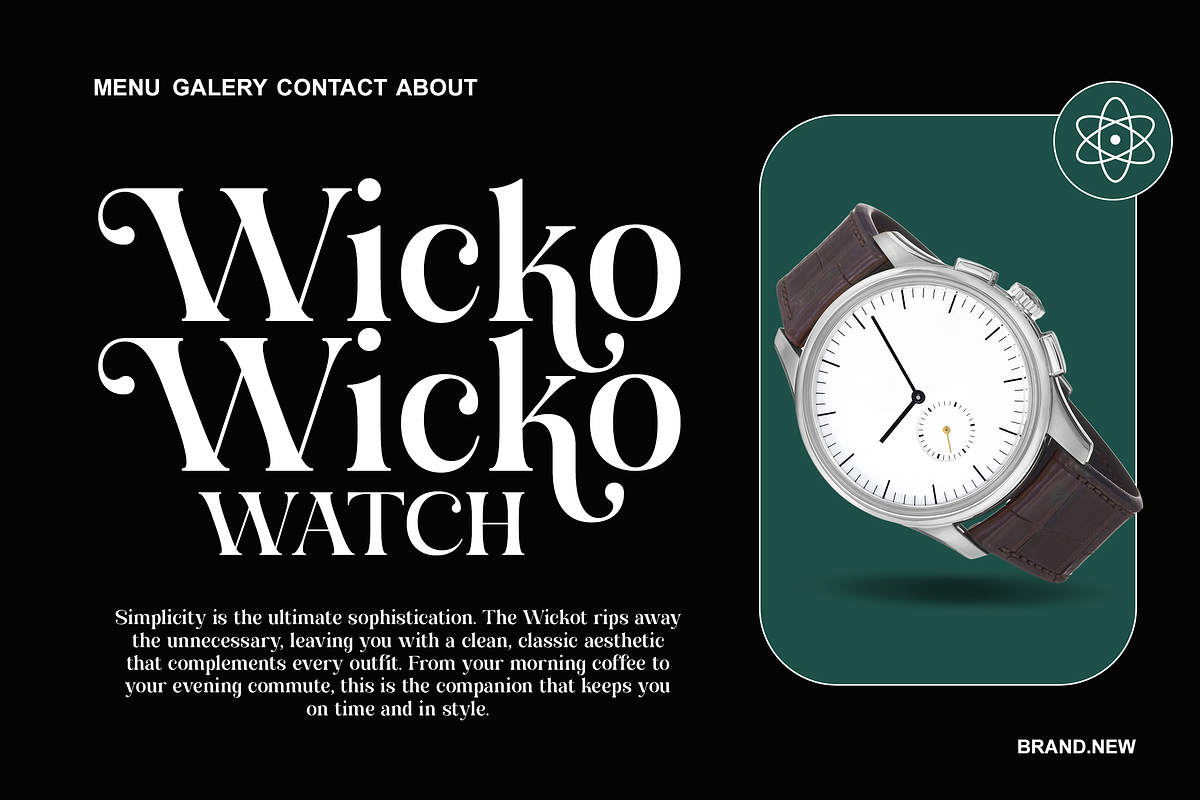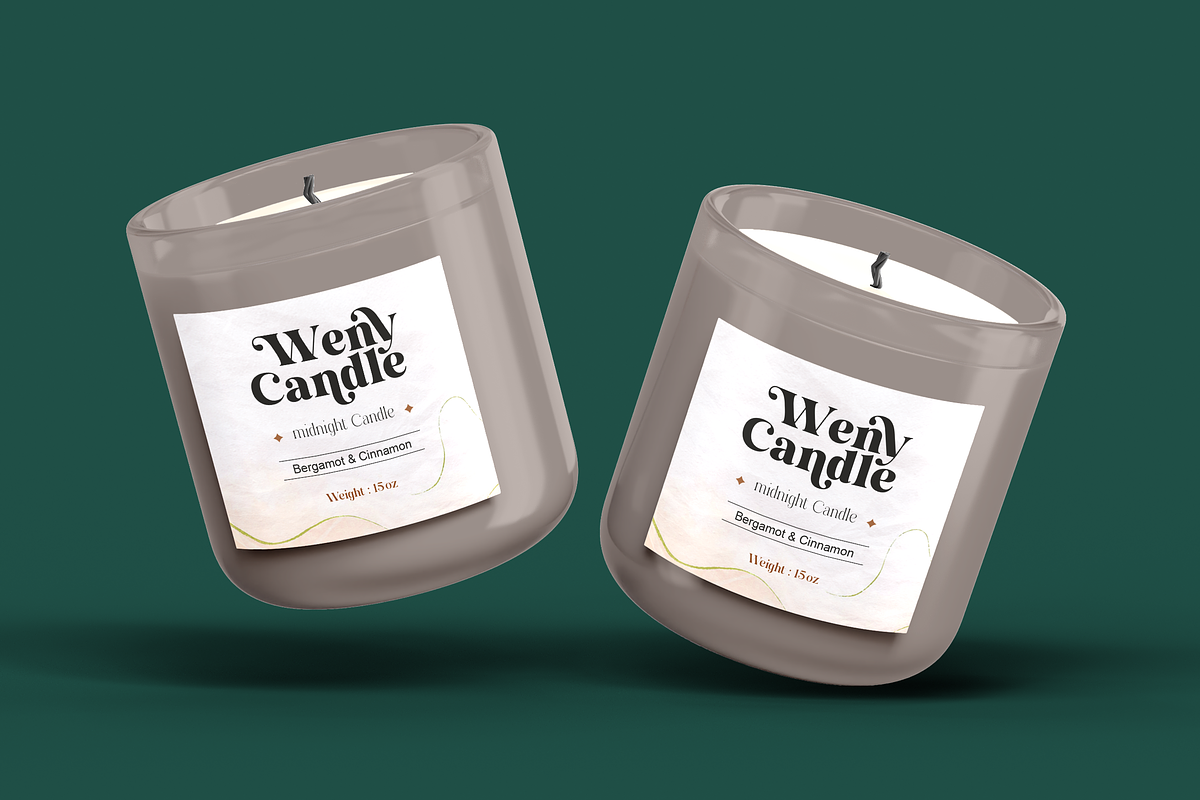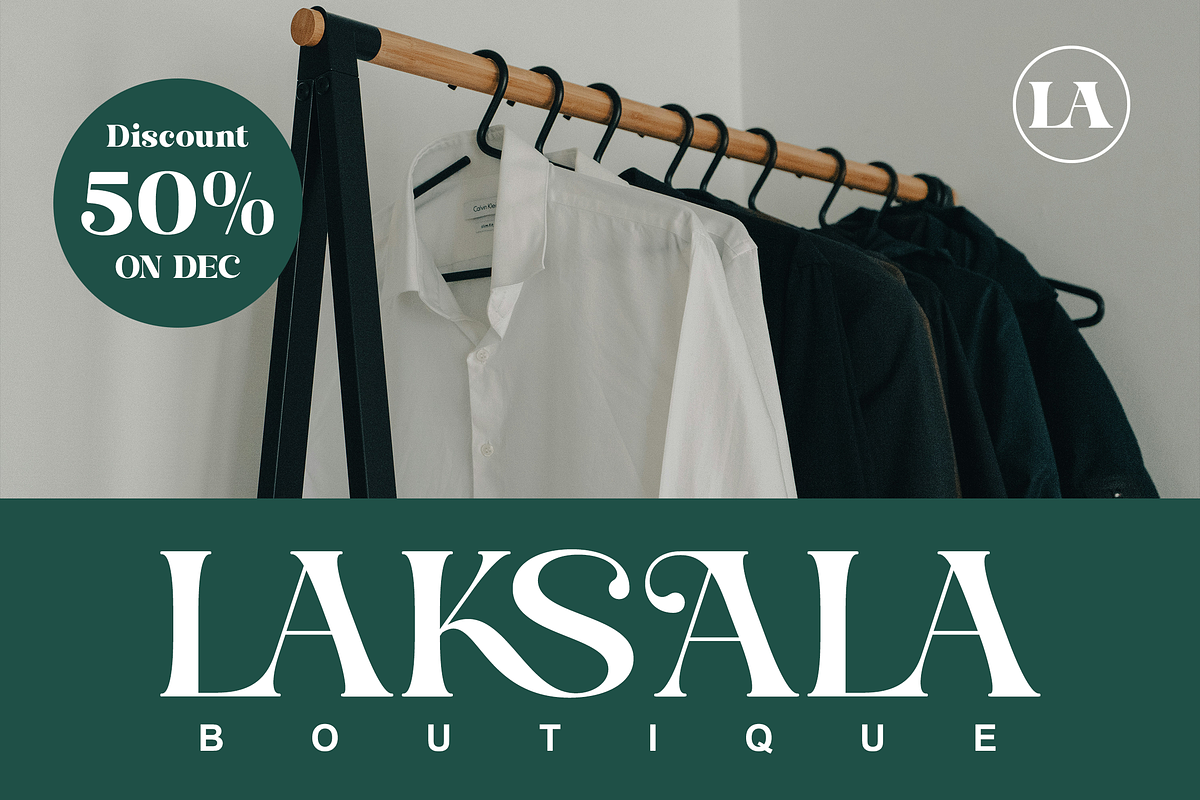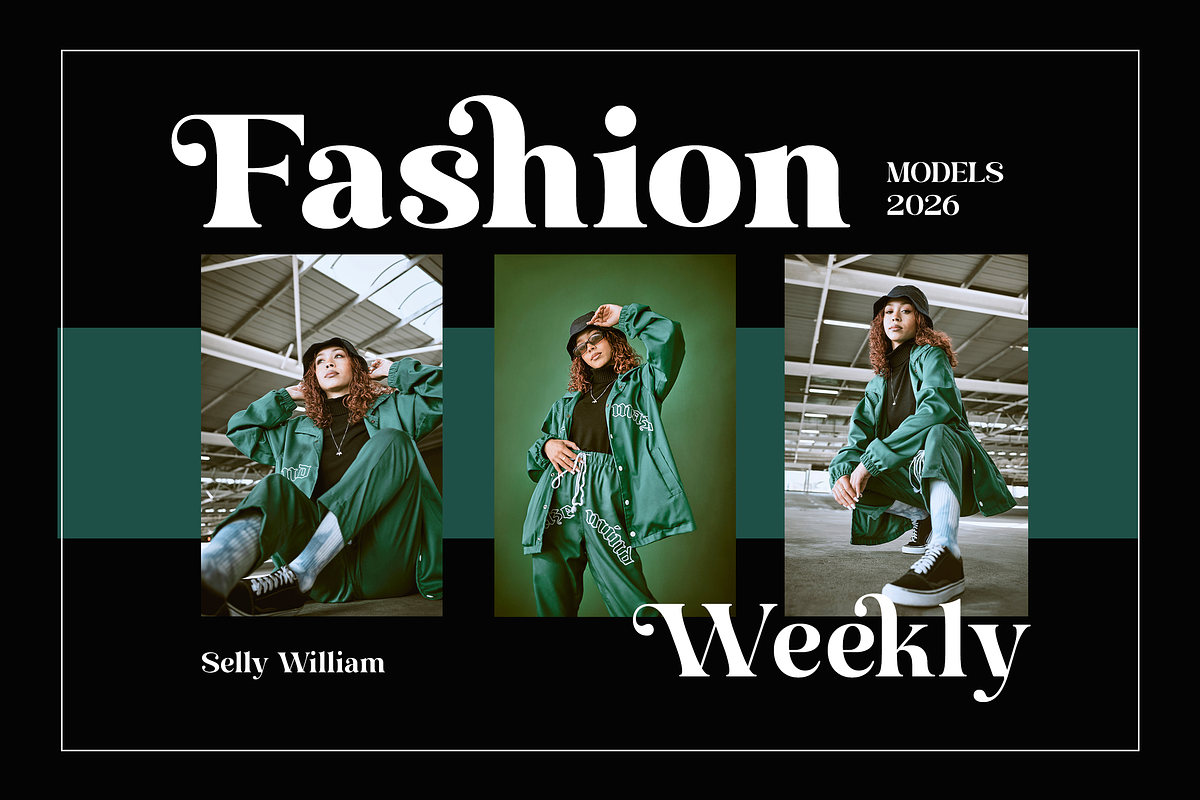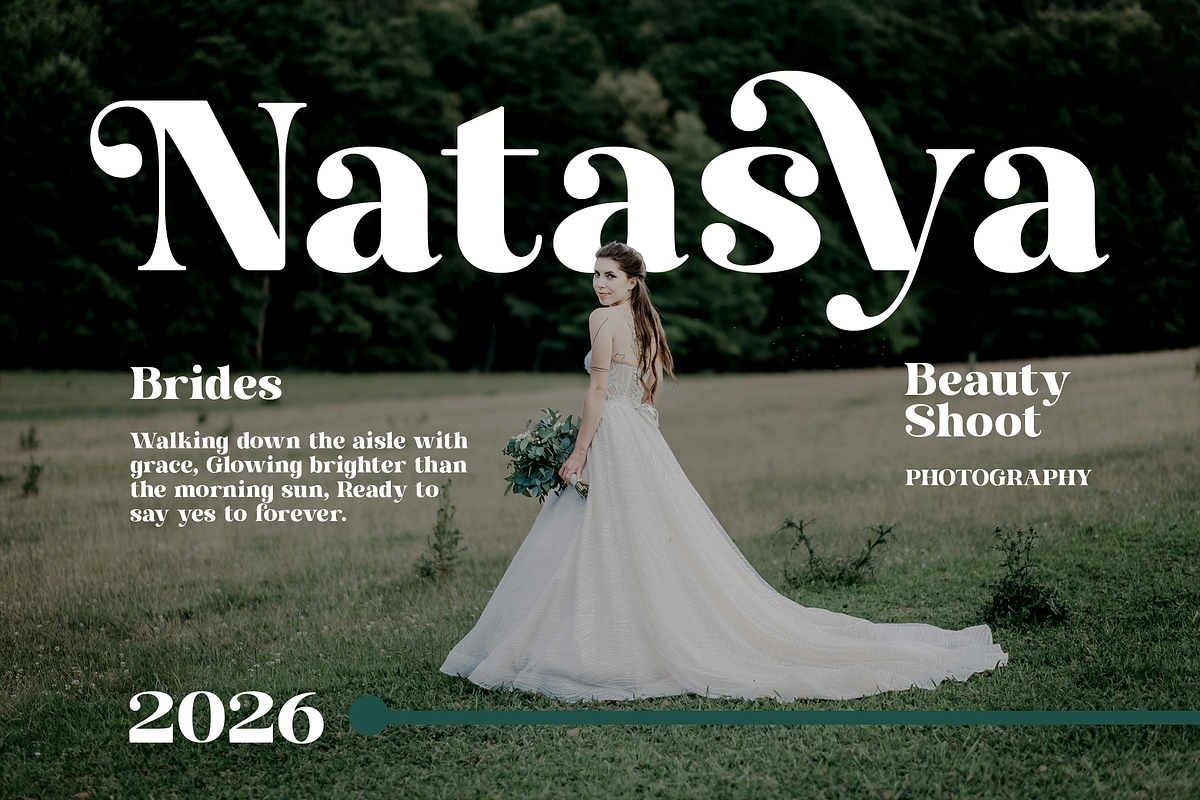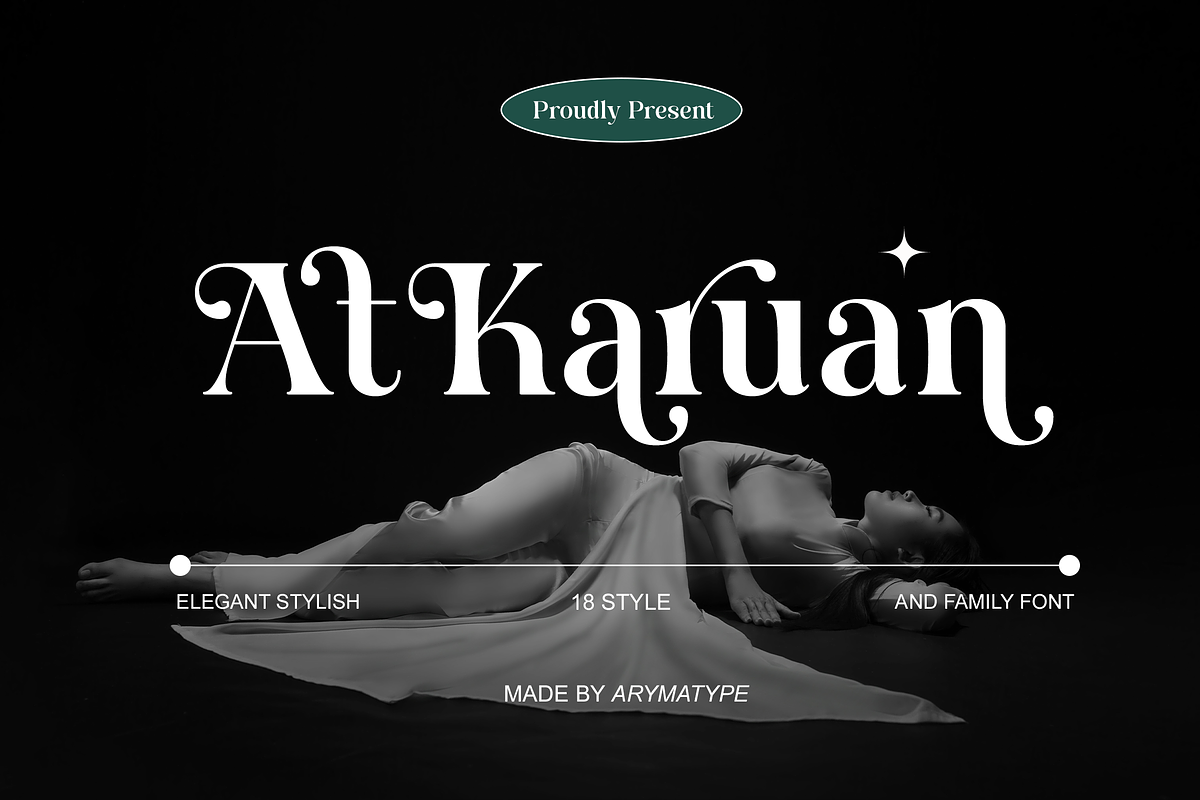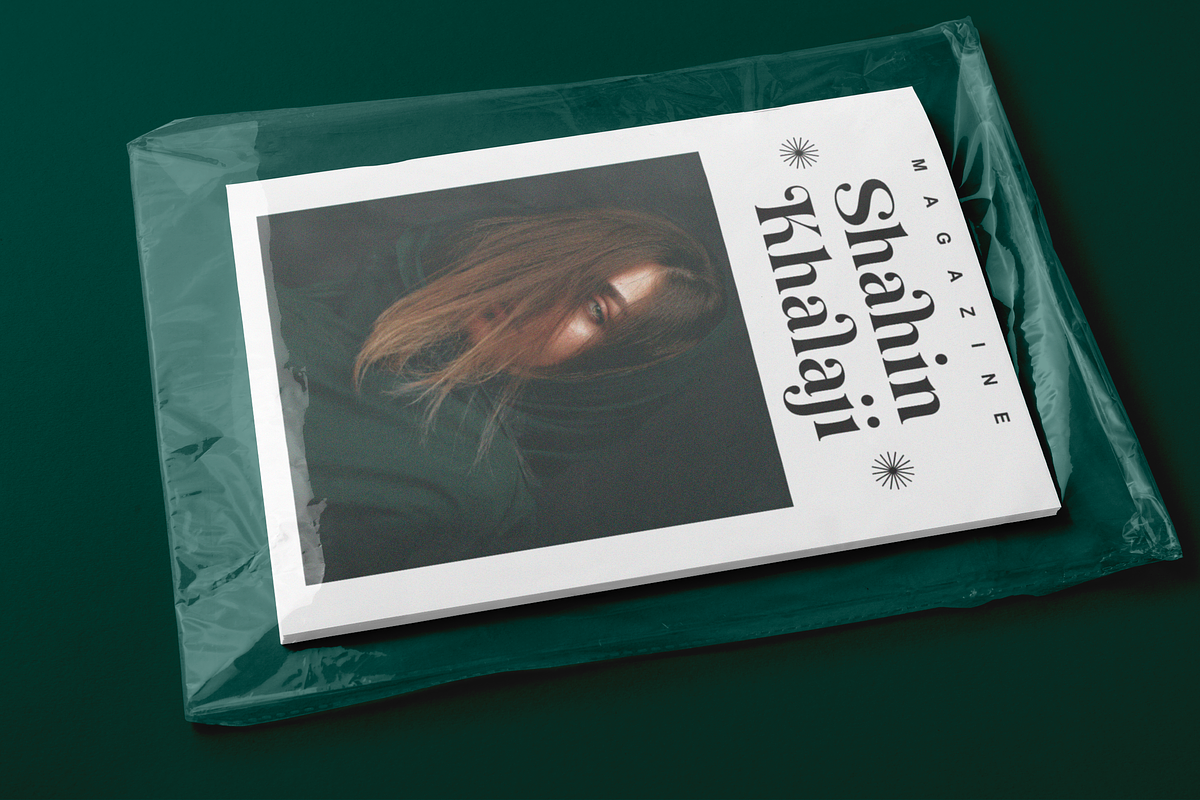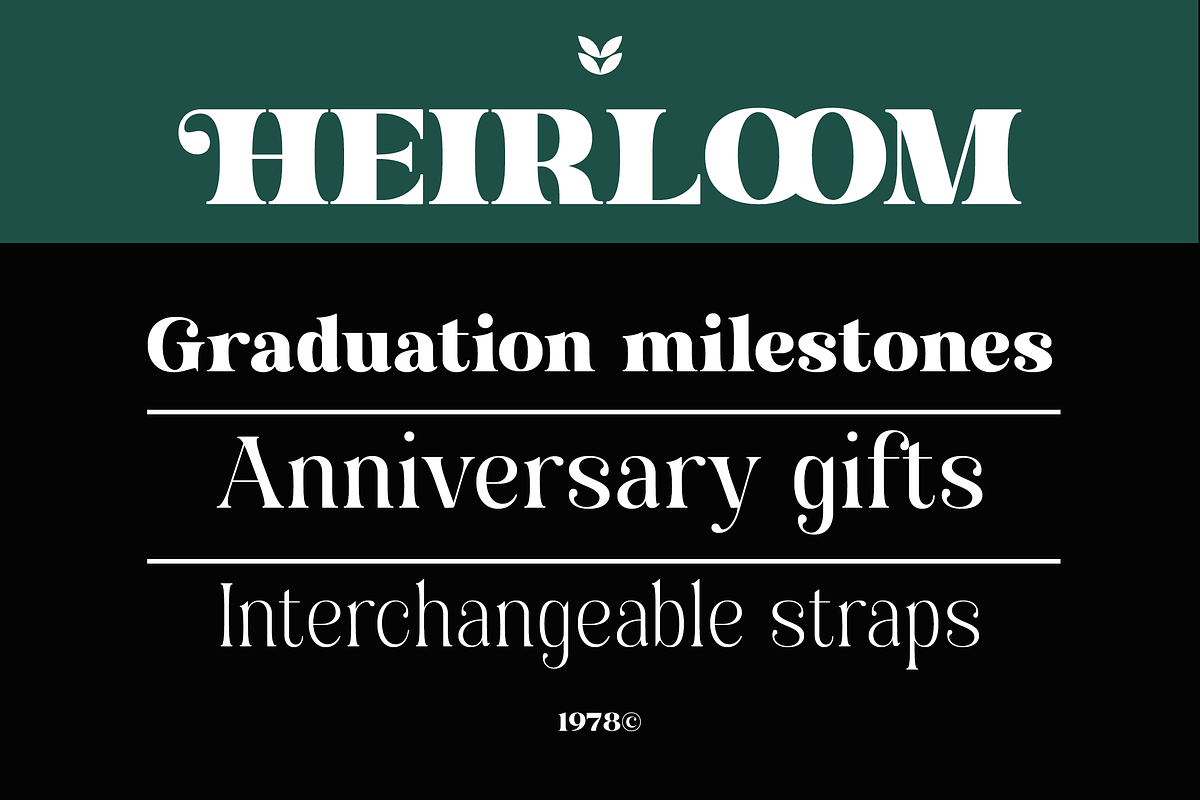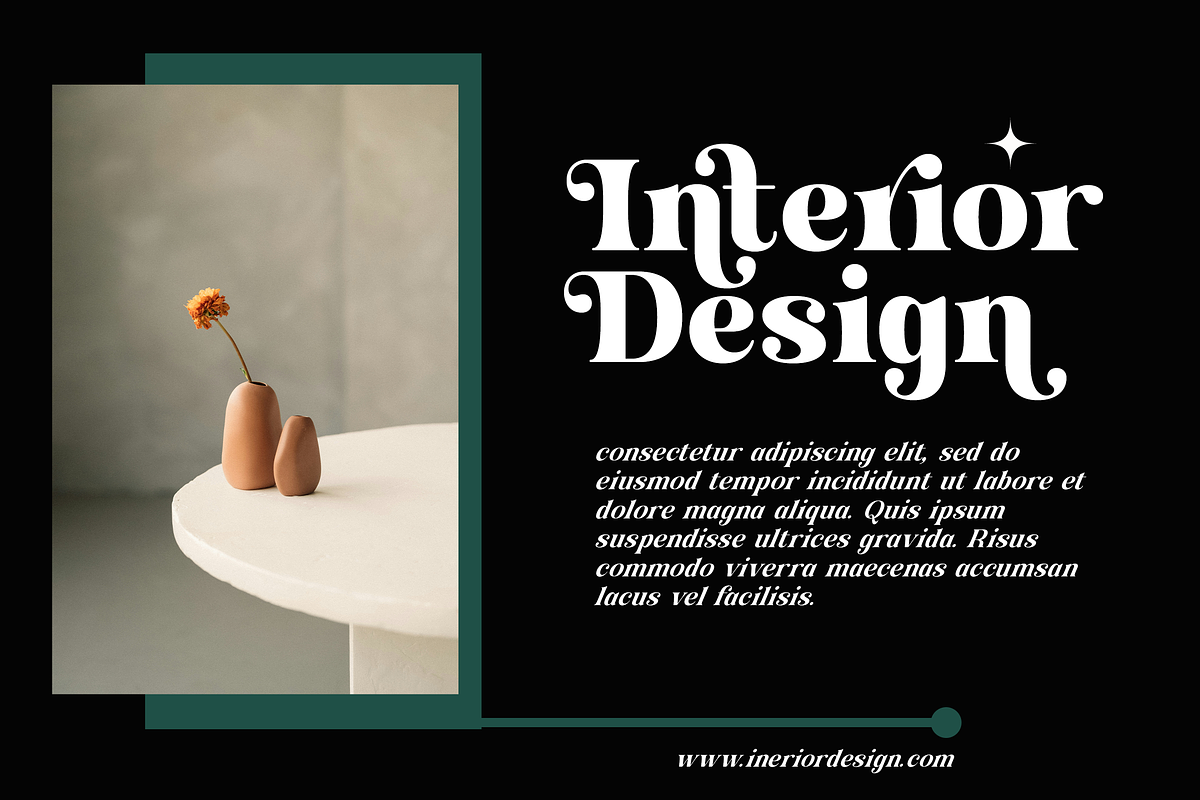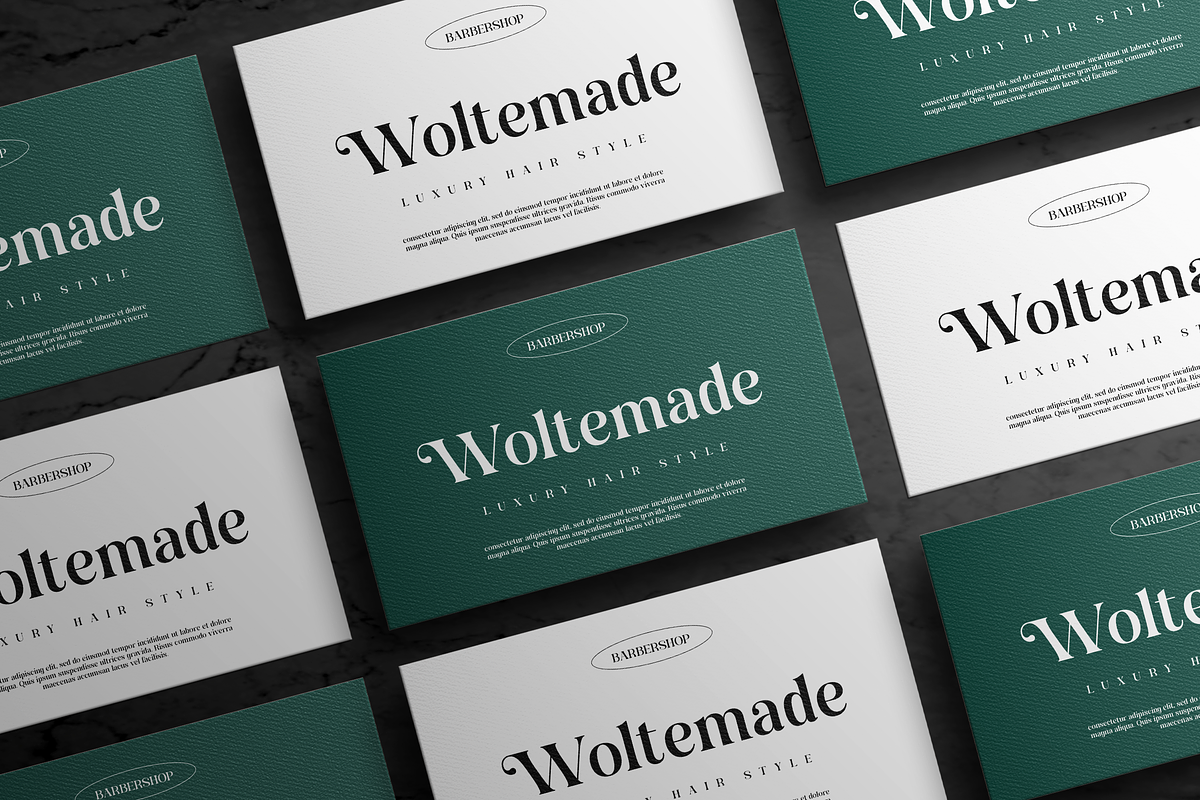
AT Karuan
Karuan is a serif typeface that combines a formal classical foundation with a fun and expressive character, brought to life through its rich set of alternates and ligatures. Structurally, Karuan draws from traditional serif conventions, delivering a sense of order and authority. Beneath that refined surface, however, it offers playful details that invite typographic exploration. Inspired by classic formal typography and reinterpreted with a more flexible and contemporary approach, Karuan is capable of shifting moods with ease. It can appear composed and serious when used plainly, or become lively and distinctive when its alternates and ligatures are activated. This balance allows Karuan to feel refined without being rigid. Thanks to its adaptable nature, Karuan works well across a wide range of design applications. From branding and headlines to editorial layouts, packaging, posters, and other creative projects, it delivers a timeless presence with a touch of personality that keeps designs engaging and memorable.